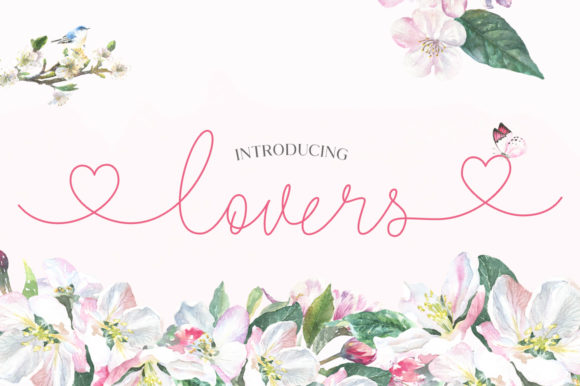
Feast your eyes on Lovers Font, the script font family that's turning heads and capturing hearts in the world of Instagram posts. Created by the talented Salt and Pepper Fonts, Lovers Font draws inspiration from classic typography, effortlessly blending tradition with a touch of modern flair.
With its elegant and flowing characters, Lovers Font is the perfect choice for adding a splash of sophistication to your Instagram posts. Whether you're a fashionista showcasing your latest finds, a travel enthusiast sharing your adventures, or a foodie tempting our taste buds with mouth-watering dishes, Lovers Font will elevate your content to new heights of visual appeal.
Imagine your Instagram feed adorned with captivating captions that dance across the screen in the graceful strokes of Lovers Font. Your followers will be mesmerized by the beauty of your words, drawn into your stories, and eager to engage with your content.
This versatile font family is not limited to Instagram; its charm extends to a myriad of design projects. From branding and headings to wedding designs, invitations, signatures, logos, and labels, Lovers Font seamlessly adapts, adding a touch of elegance and personality wherever it's used.
So, unleash your creativity and let Lovers Font transform your designs into works of art. Say goodbye to ordinary fonts and embrace the allure of Lovers Font, the script font that will make your creations shine brighter than ever before.